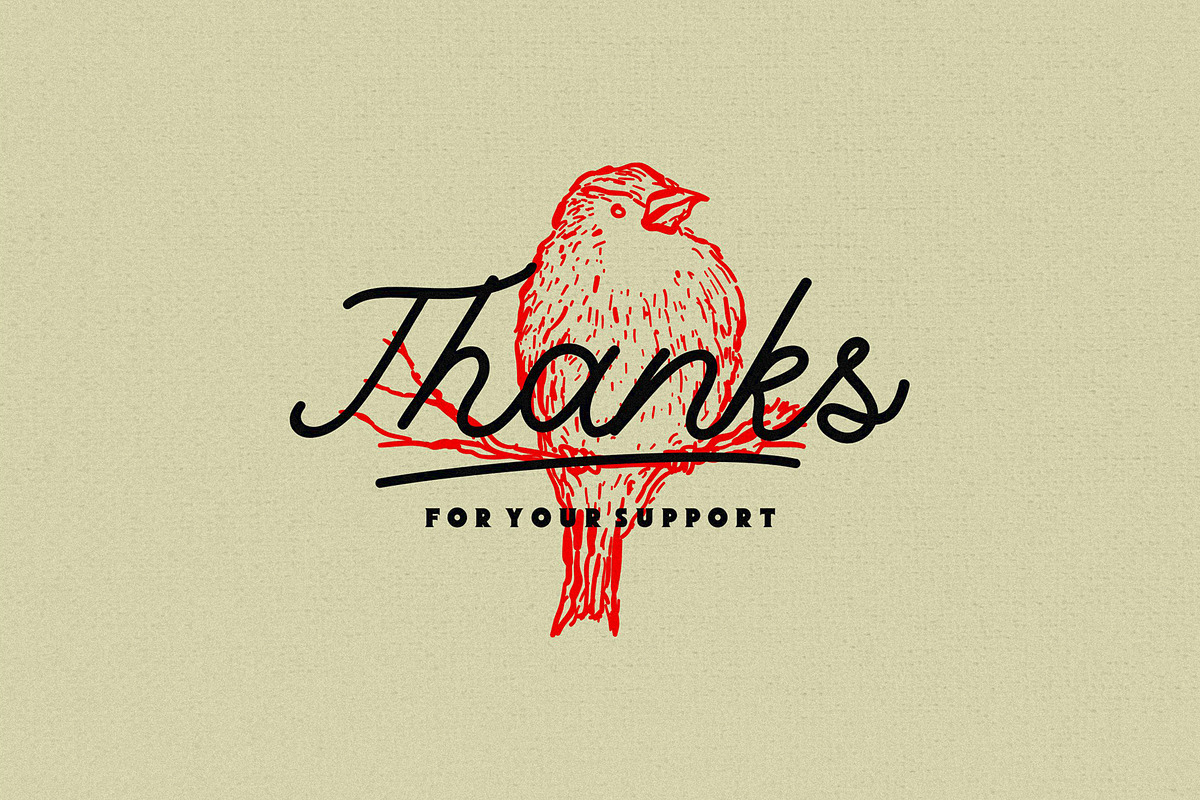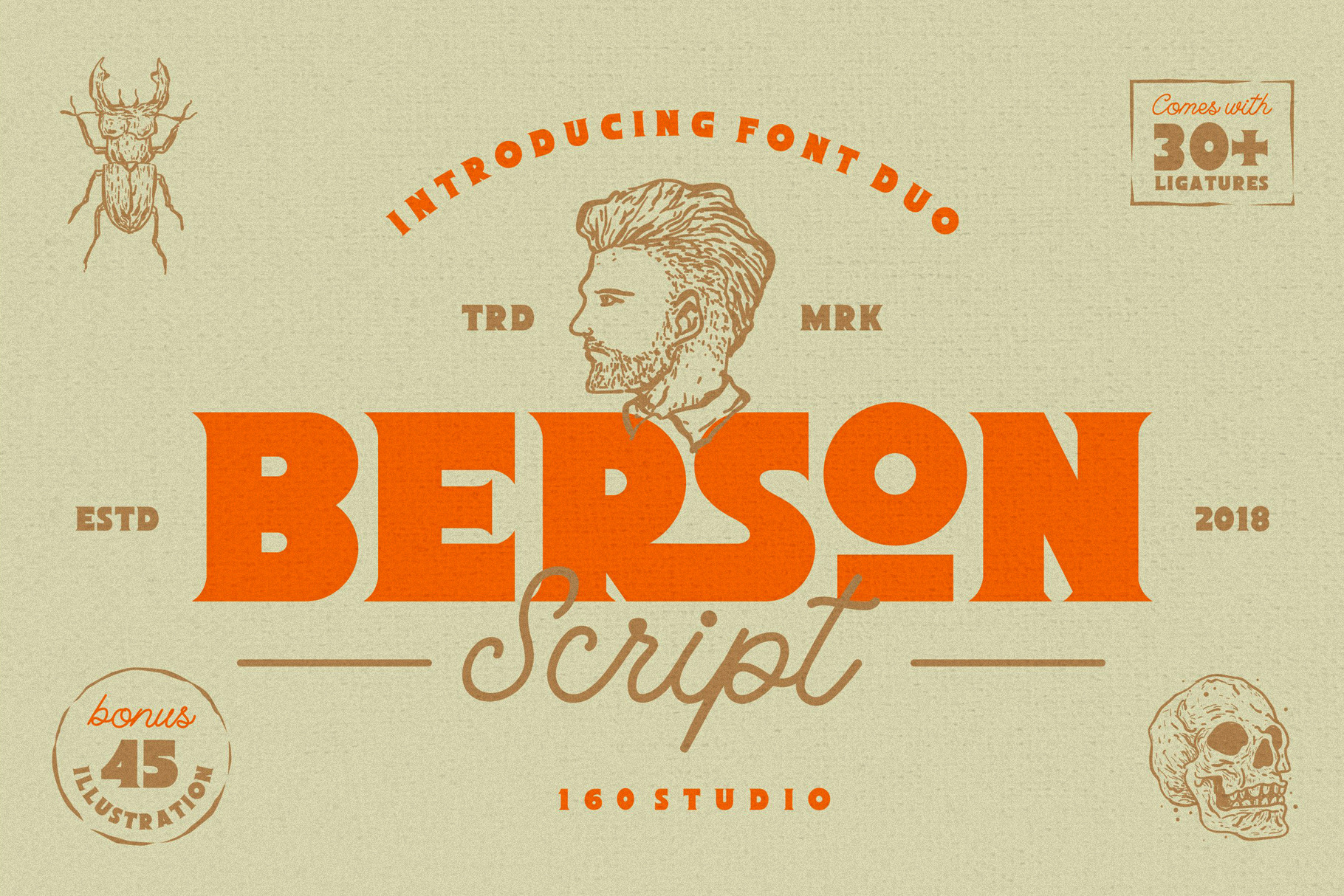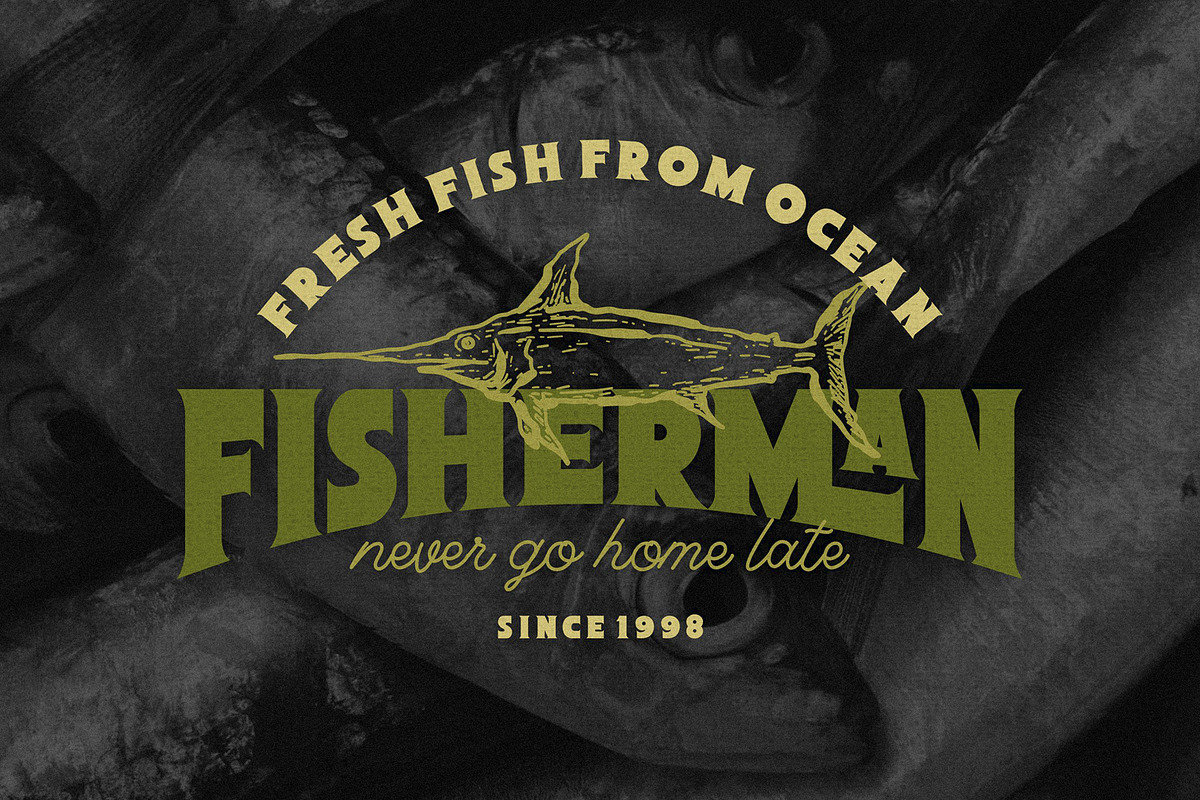
Berson Font Duo + Bonus
Introducing
Berson Font Duo
Vintage, Modern, and Bold font. Perfect for logo, poster, headline, T shirts, etc.
Comes with 3 font files, and more than 30 ligature, also available in script version